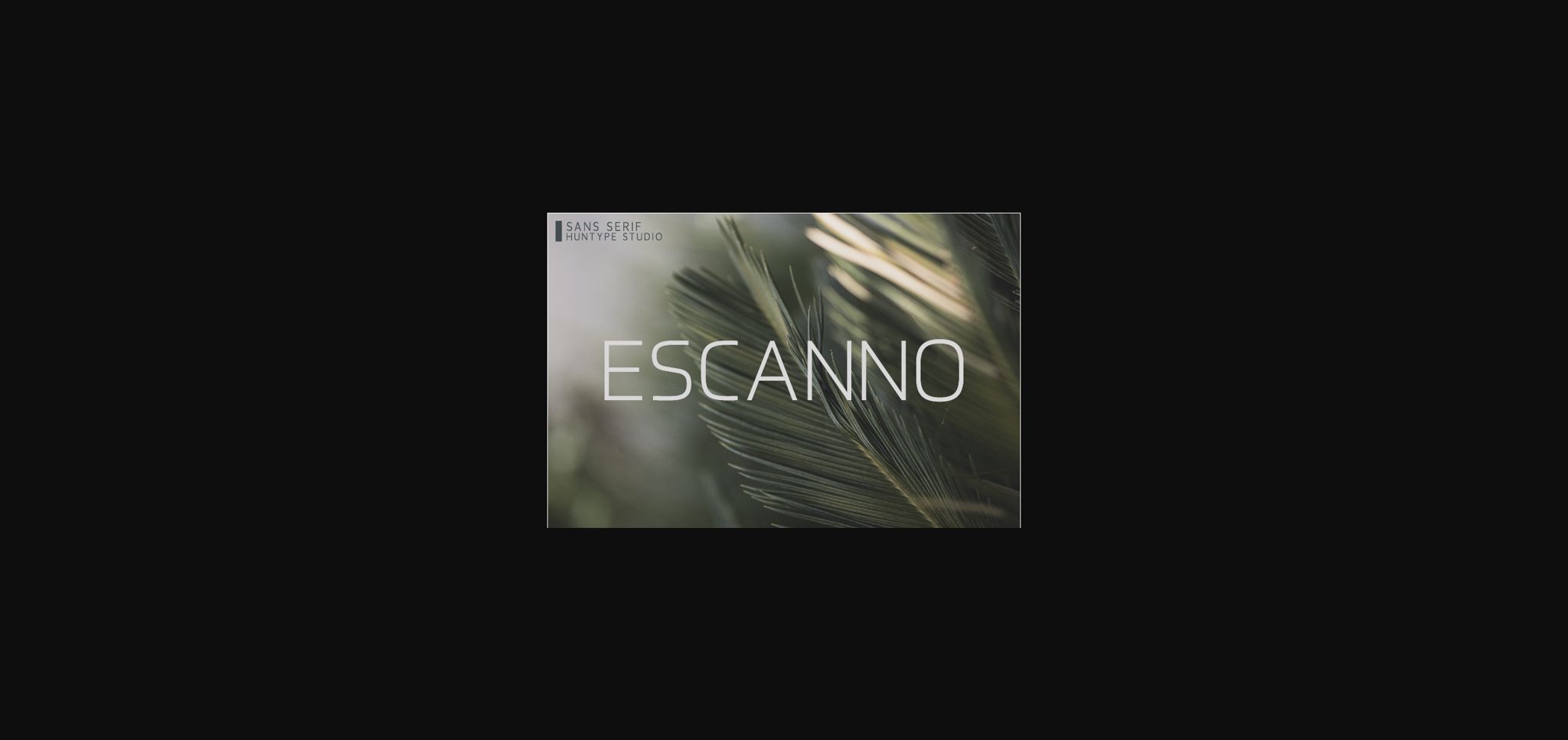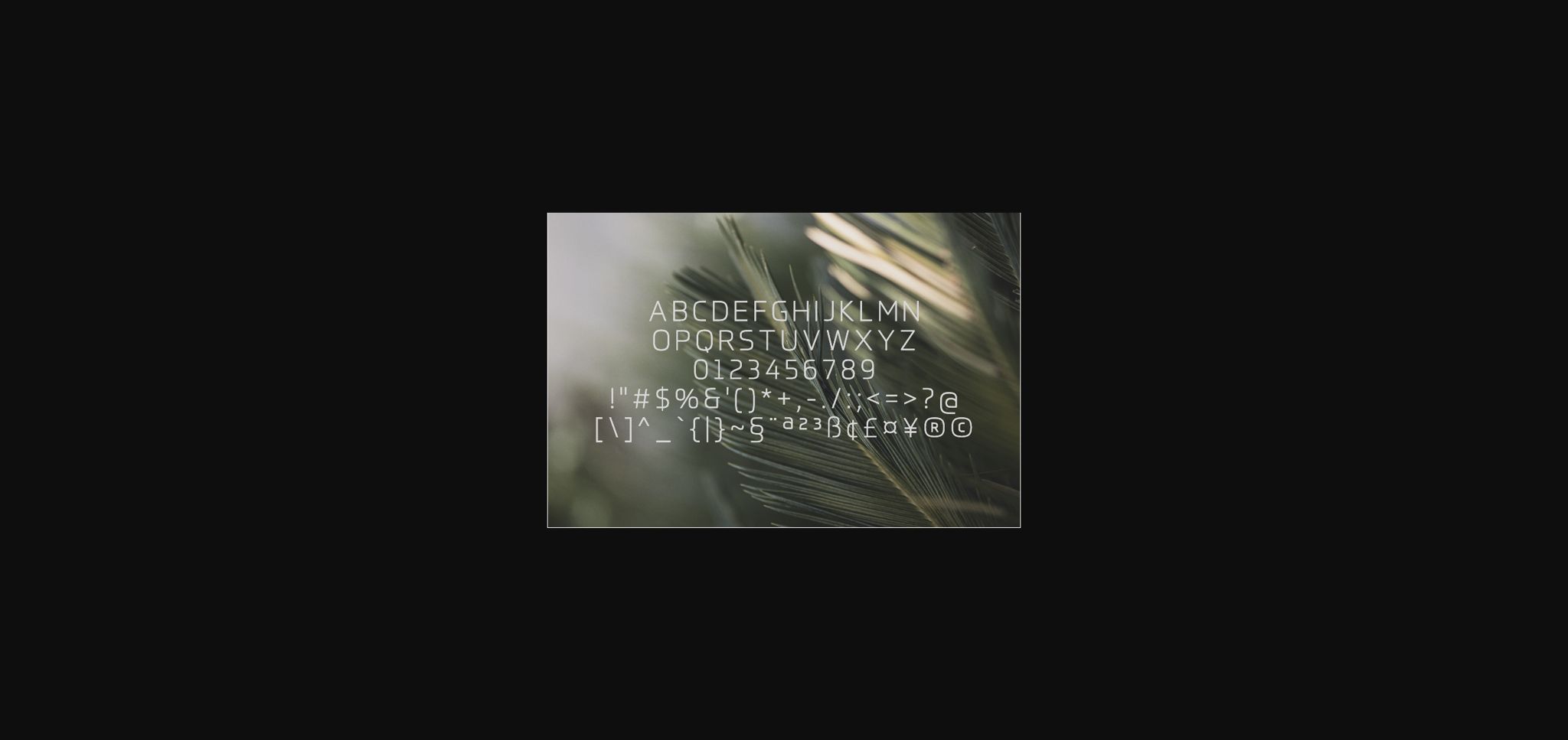
Escanno Font
About Escanno Font
Escanno is a simple and casual sans serif font with an undeniably clean feel. With its neat and beautiful arrangement of letters, this typeface will look outstanding in both formal and non-formal designs.